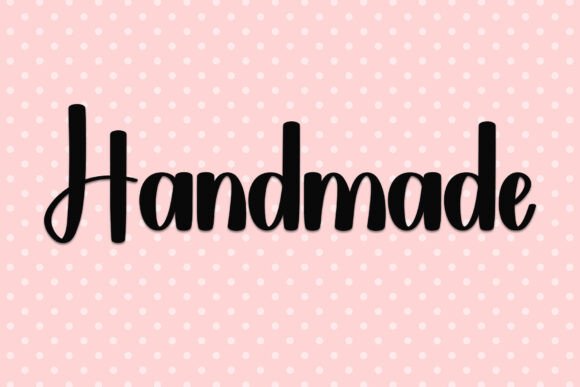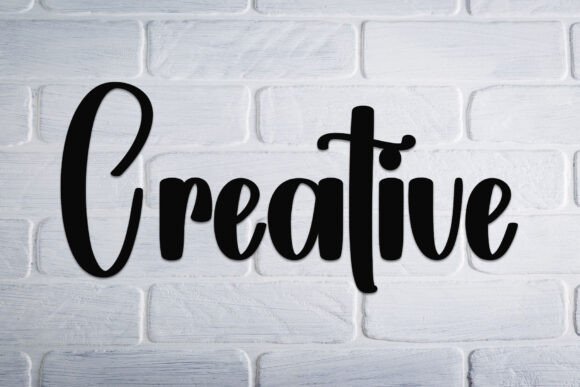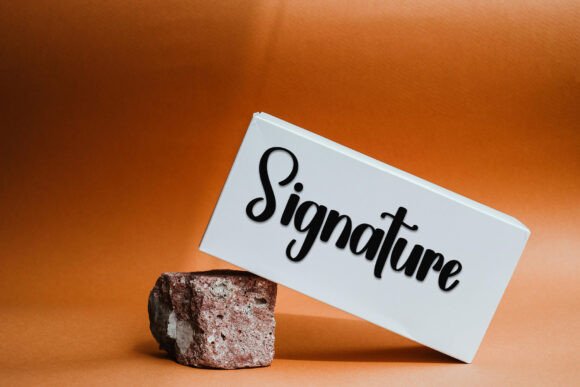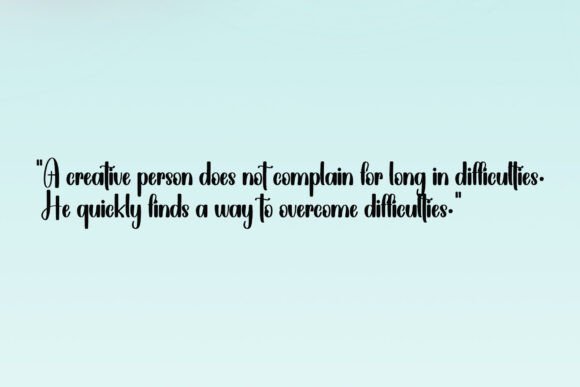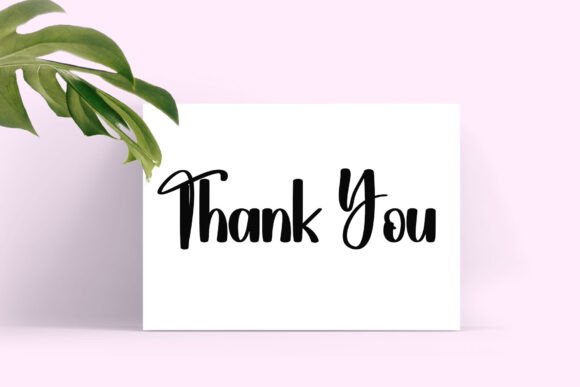
Baby Monkey Font: The Sweet and Cursive Handwritten Font for Your Design Needs
Are you looking for a font that can add a touch of sweetness and elegance to your designs? Look no further than the Baby Monkey Font. This beautiful, cursive handwritten font is perfect for a variety of design projects, from branding and logos to wedding materials and greeting cards. In this article, we’ll take a closer look at the Baby Monkey Font and explore its features, benefits, and uses.
What is Baby Monkey Font?
Baby Monkey Font is a sweet and cursive handwritten font that is designed to add a joyful and romantic touch to your designs. Its gentle and elegant curves make it perfect for a wide range of projects, from fashion and marketing materials to wedding decorations and greeting cards. This font is carefully crafted to provide a unique and personalized touch to your designs, making them stand out from the crowd.
Features of Baby Monkey Font
The Baby Monkey Font has several features that make it an ideal choice for designers and crafters. Some of its key features include:
• Sweet and Cursive Design: The Baby Monkey Font has a beautiful, cursive handwritten design that is both sweet and elegant.
• Versatile: This font is versatile and can be used for a variety of design projects, from branding and logos to wedding materials and greeting cards.
• Easy to Read: The Baby Monkey Font is easy to read, making it perfect for body text and headlines.
• Scalable: This font is scalable, meaning it can be used for both large and small design projects.
Benefits of Using Baby Monkey Font
There are several benefits to using the Baby Monkey Font in your designs. Some of the benefits include:
• Adds a Touch of Elegance: The Baby Monkey Font adds a touch of elegance and sophistication to your designs, making them perfect for high-end brands and luxury products.
• Creates a Personalized Look: This font creates a personalized look that is unique and distinctive, helping your brand to stand out from the crowd.
• Perfect for Wedding and Fashion Designs: The Baby Monkey Font is perfect for wedding and fashion designs, adding a touch of romance and glamour to your projects.
Uses of Baby Monkey Font
The Baby Monkey Font can be used for a variety of design projects, including:
• Branding and Logos: This font is perfect for branding and logos, adding a touch of elegance and sophistication to your brand identity.
• Wedding Materials: The Baby Monkey Font is perfect for wedding materials, including invitations, programs, and decorations.
• Greeting Cards: This font is perfect for greeting cards, adding a touch of sweetness and elegance to your cards.
• Fashion and Marketing Materials: The Baby Monkey Font is perfect for fashion and marketing materials, including lookbooks, brochures, and advertisements.
Tips for Using Baby Monkey Font
Here are some tips for using the Baby Monkey Font in your designs:
• Use it for Headlines and Titles: The Baby Monkey Font is perfect for headlines and titles, adding a touch of elegance and sophistication to your designs.
• Pair it with Other Fonts: This font can be paired with other fonts to create a unique and distinctive look.
• Use it for Body Text: The Baby Monkey Font can be used for body text, providing a clear and easy-to-read font for your readers.
In conclusion, the Baby Monkey Font is a beautiful and versatile font that is perfect for a variety of design projects. Its sweet and cursive design makes it perfect for adding a touch of elegance and sophistication to your designs. Whether you’re a designer or crafter, this font is sure to become a valuable addition to your font collection.